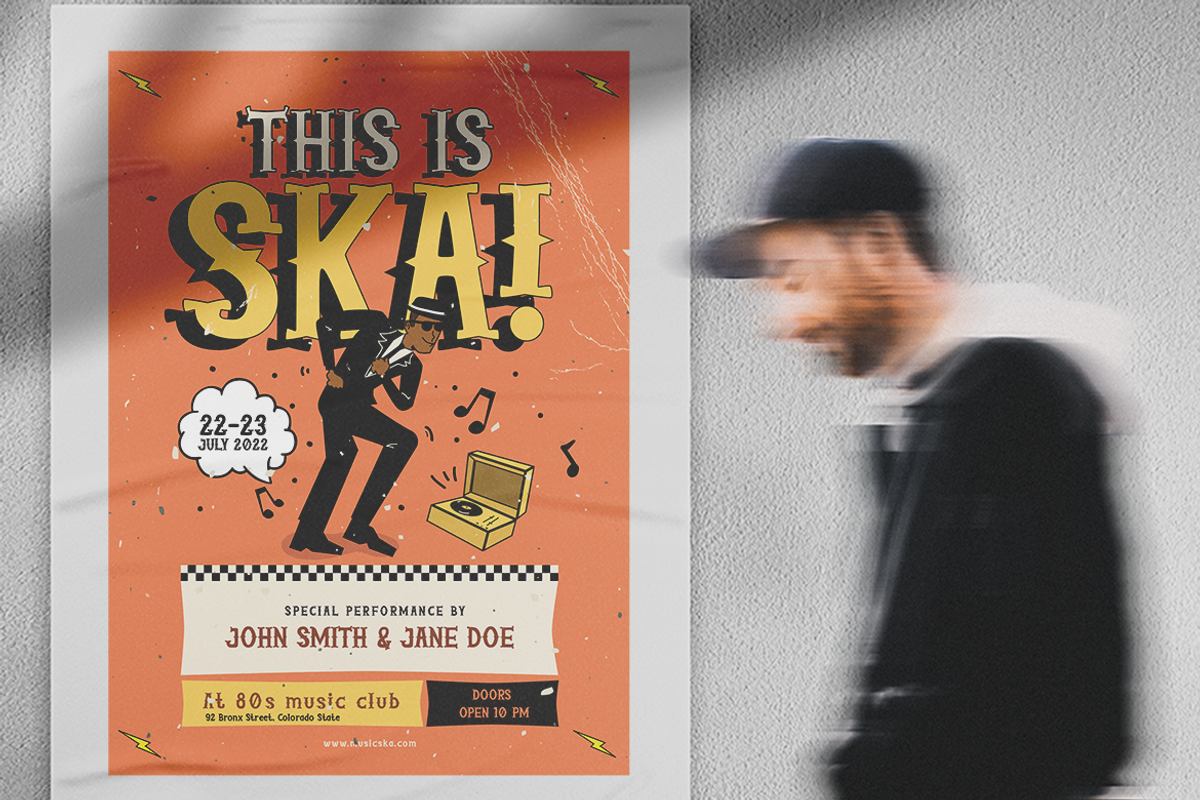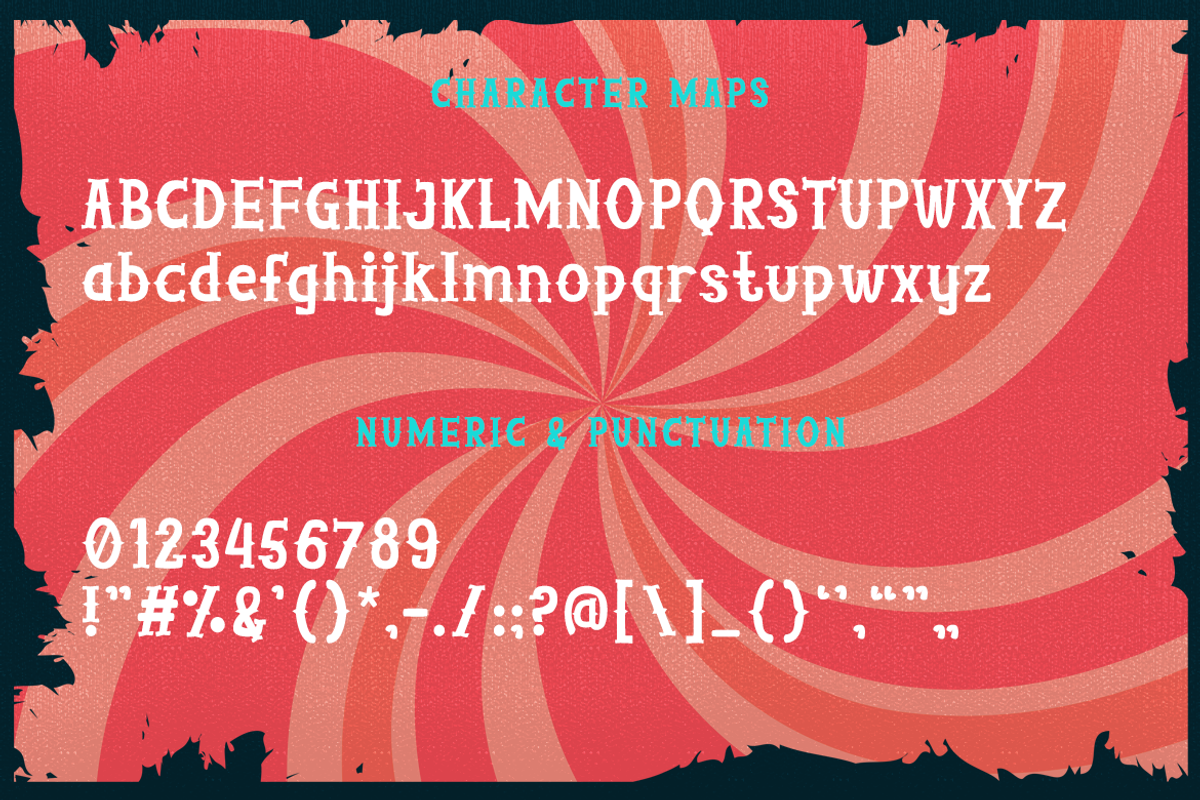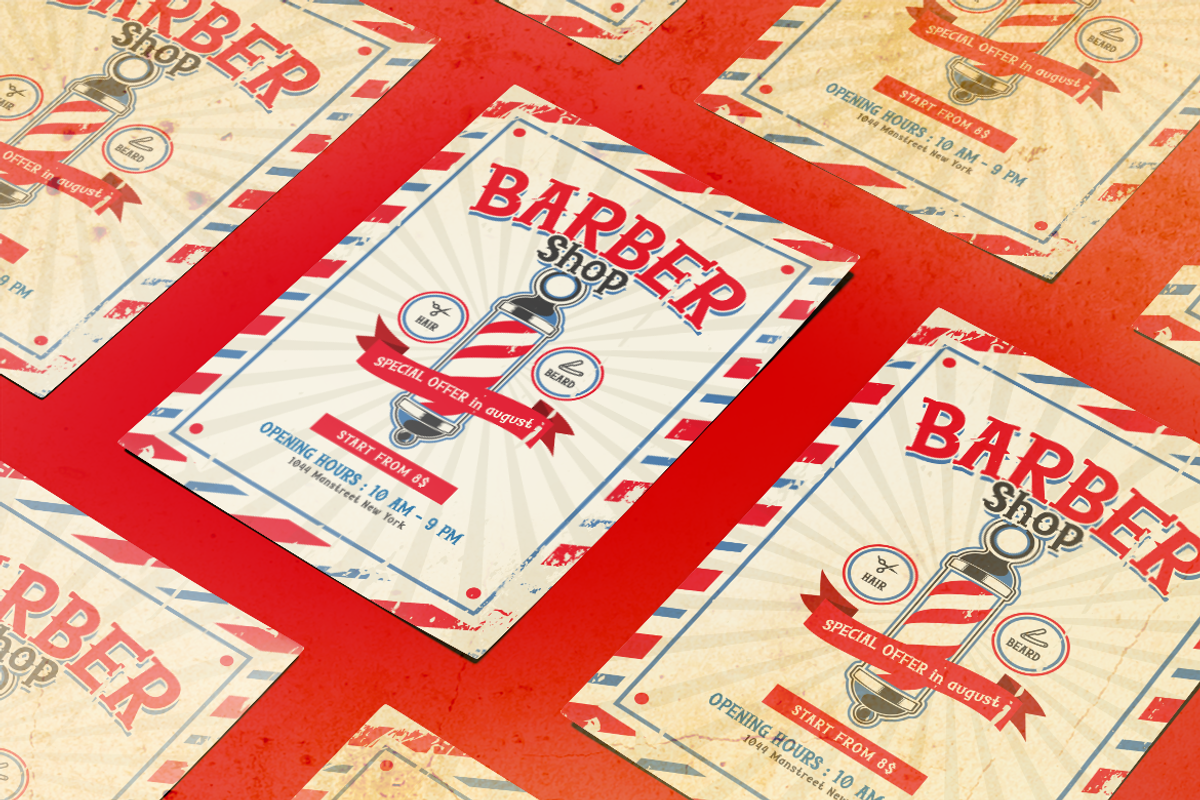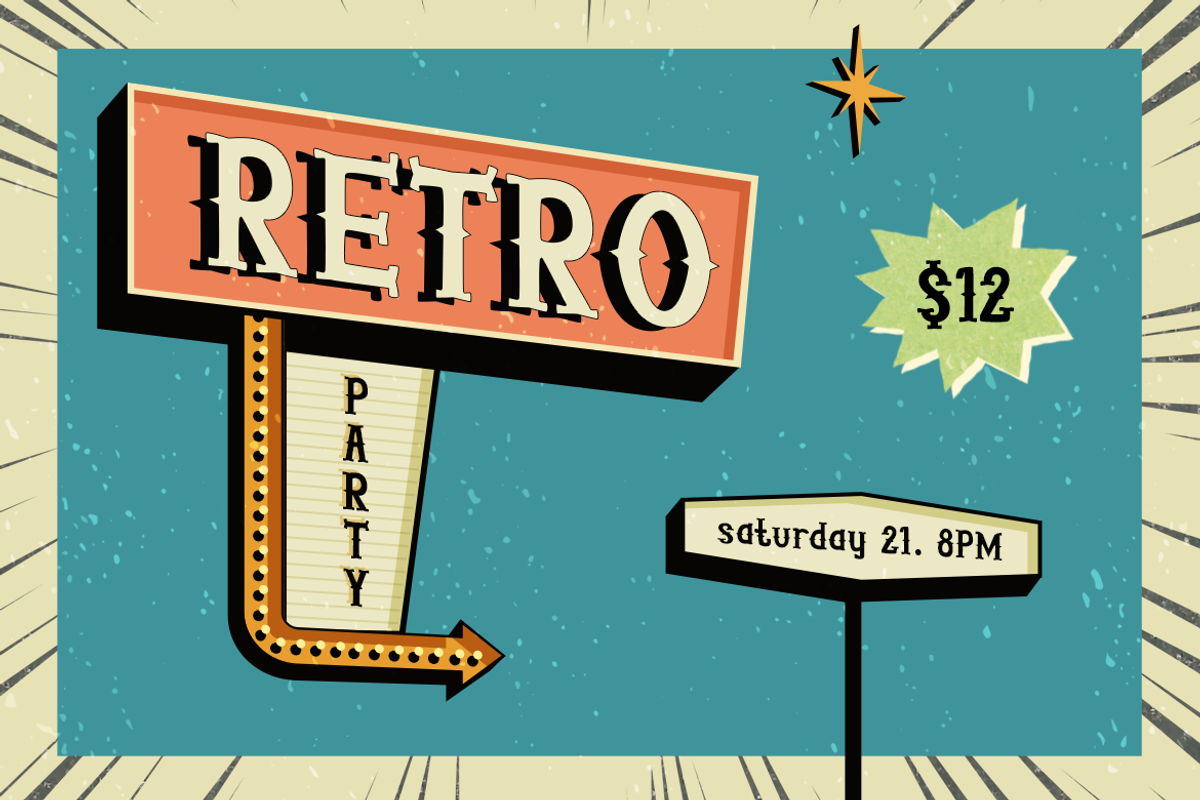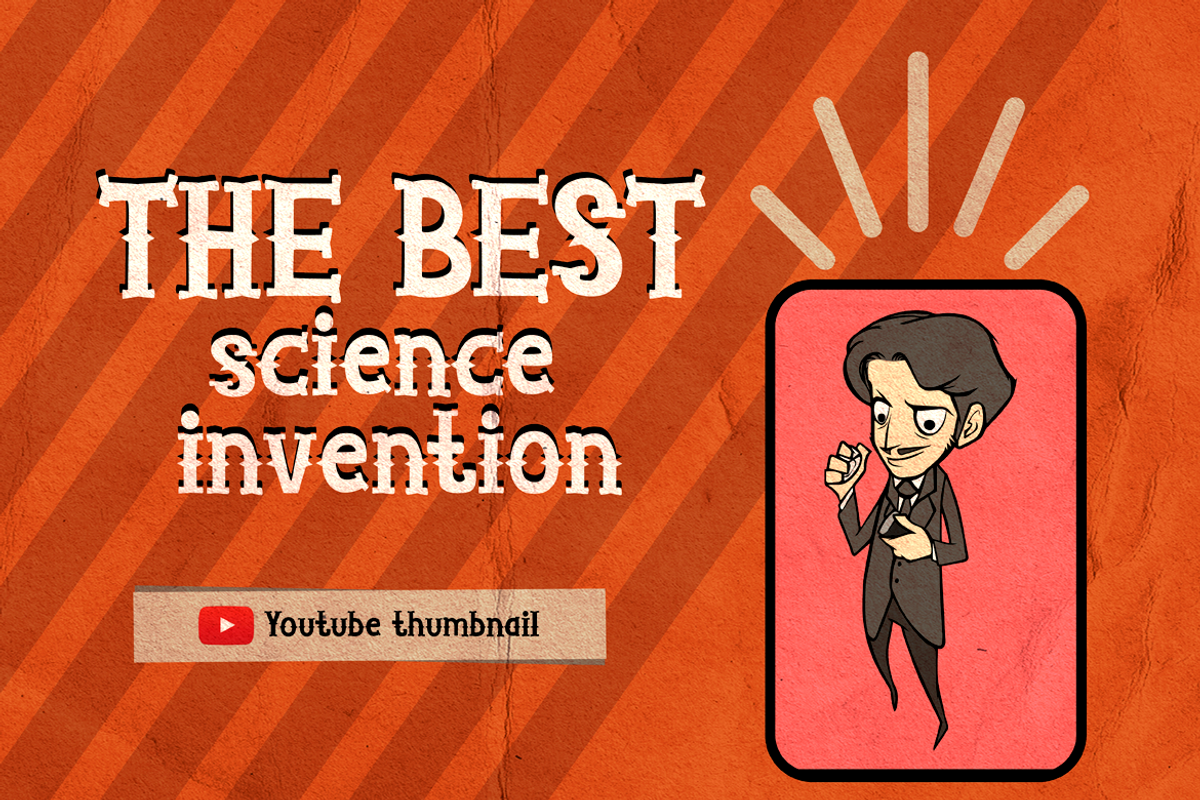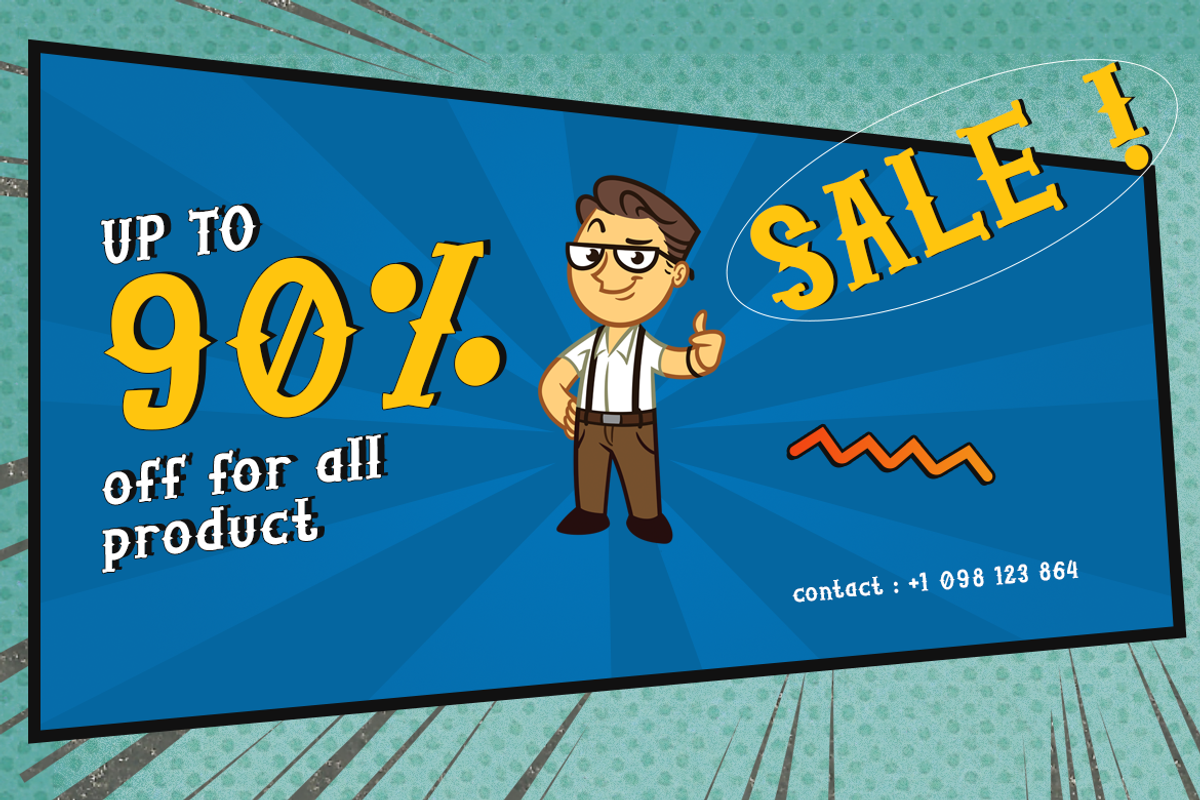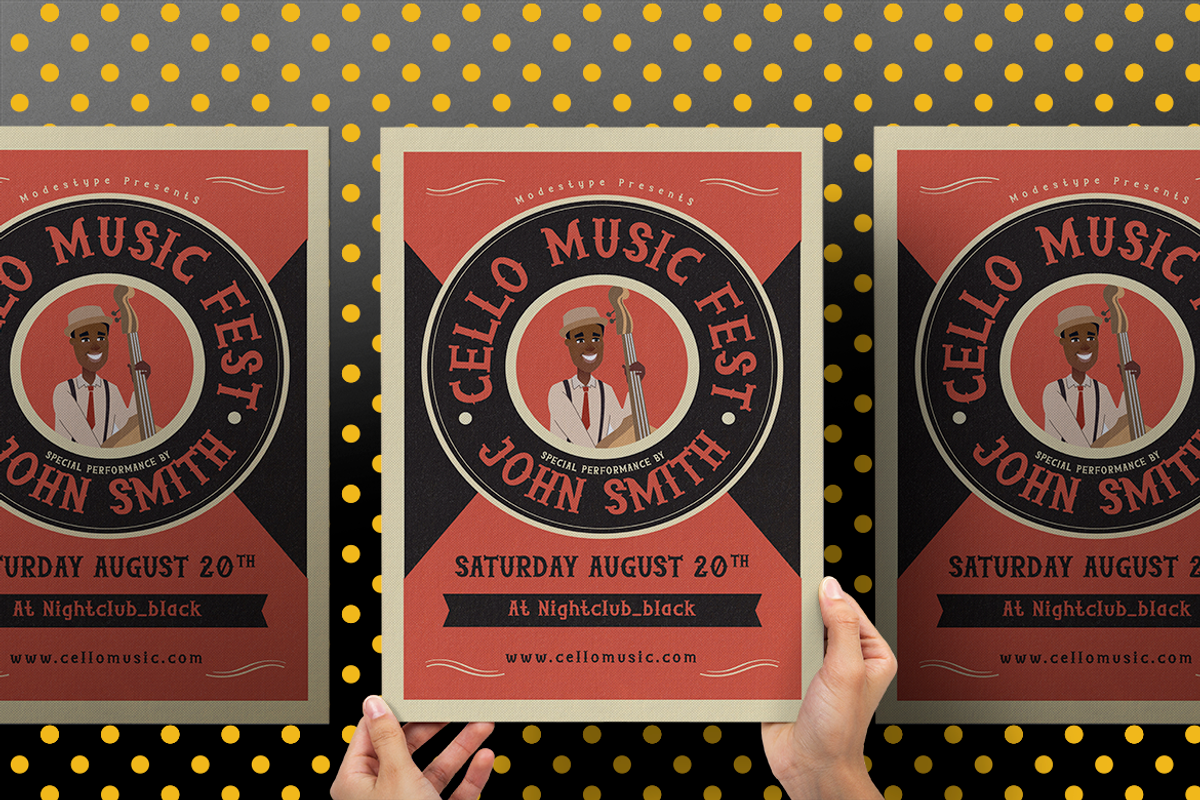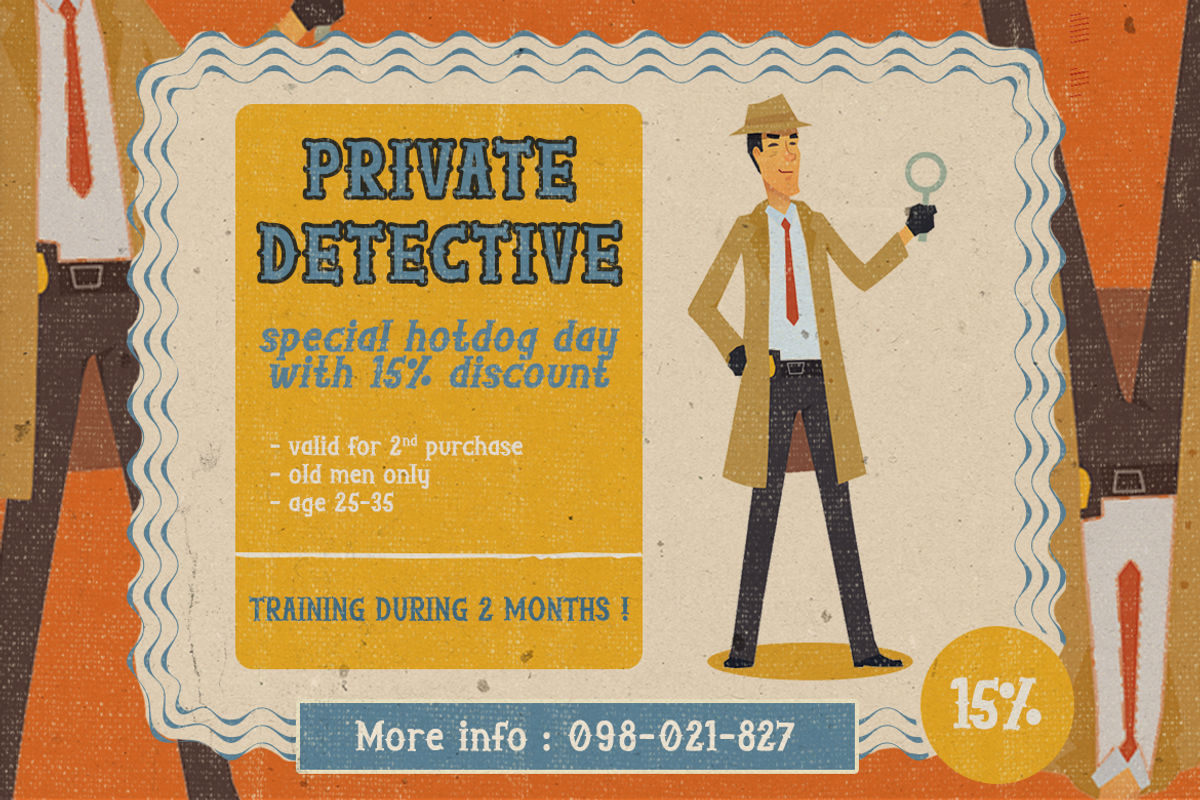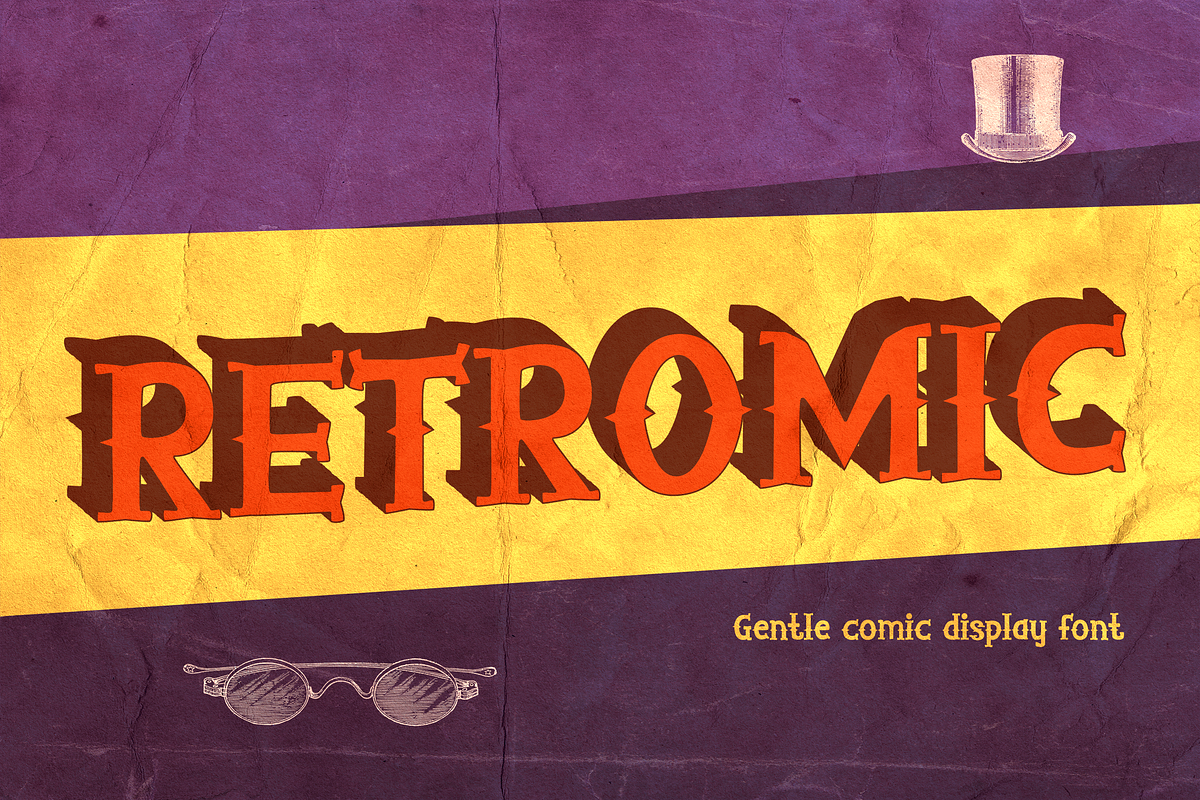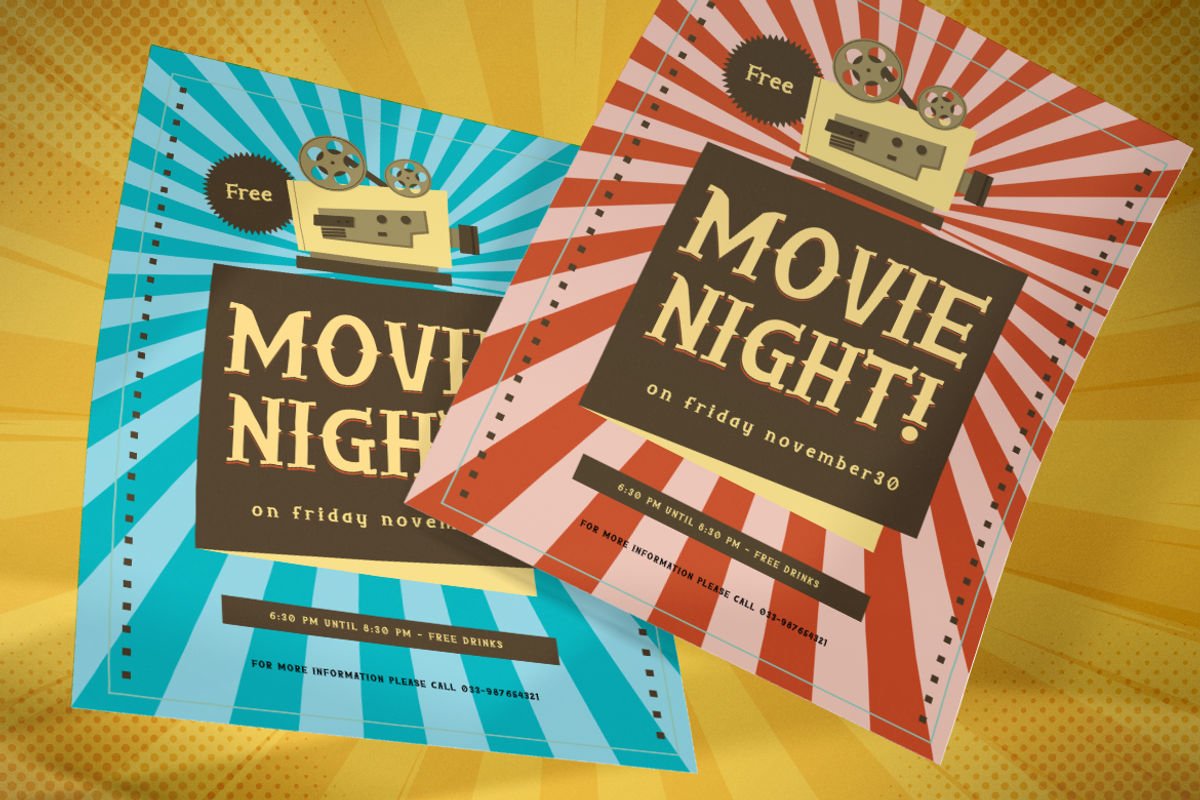
Retromic - Gentle Comic Font
RETROMIC - Gentle Comic Display Font
Bring good old memories all together. RETROMIC is what it's all about. The crisp and serif style will emphasize the retro feels.
Suit perfect for retro pop culture books market, online games, vintage event posters, school supplies font, posters, movie titles, youtube covers, youtube thumbnails, social media page covers, and so on...